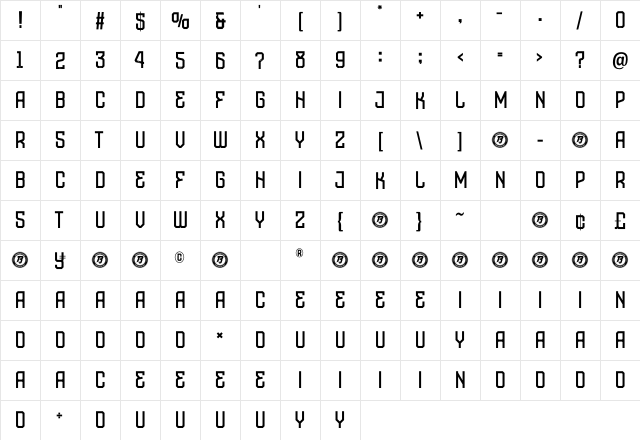
Complete Eindhoven Personal Use XI Regular glyph index. Displaying only characters natively supported by Eindhoven Personal Use XI Regular font.
Eindhoven Personal Use XI is a composed and adaptable typeface that performs quietly and consistently across a wide range of design contexts.